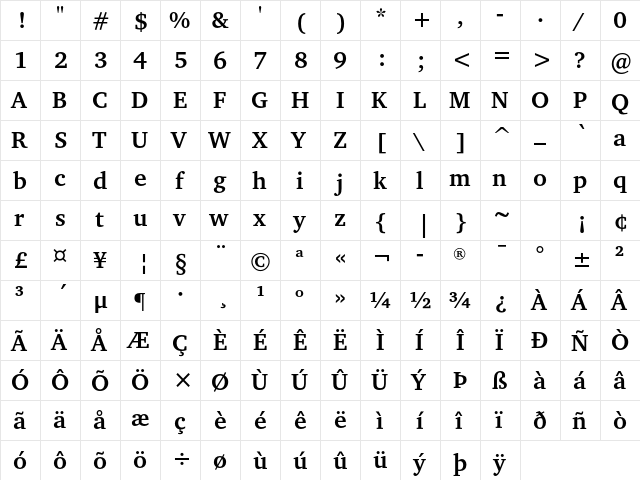
Charter ITC Std Bold
| Designer | Matthew Carter |
Design Context for Charter ITC Std Typeface
Charter ITC Std is a composed and adaptable typeface that performs quietly and consistently across a wide range of design contexts. The heavy weight commands attention and anchors typographic hierarchies.